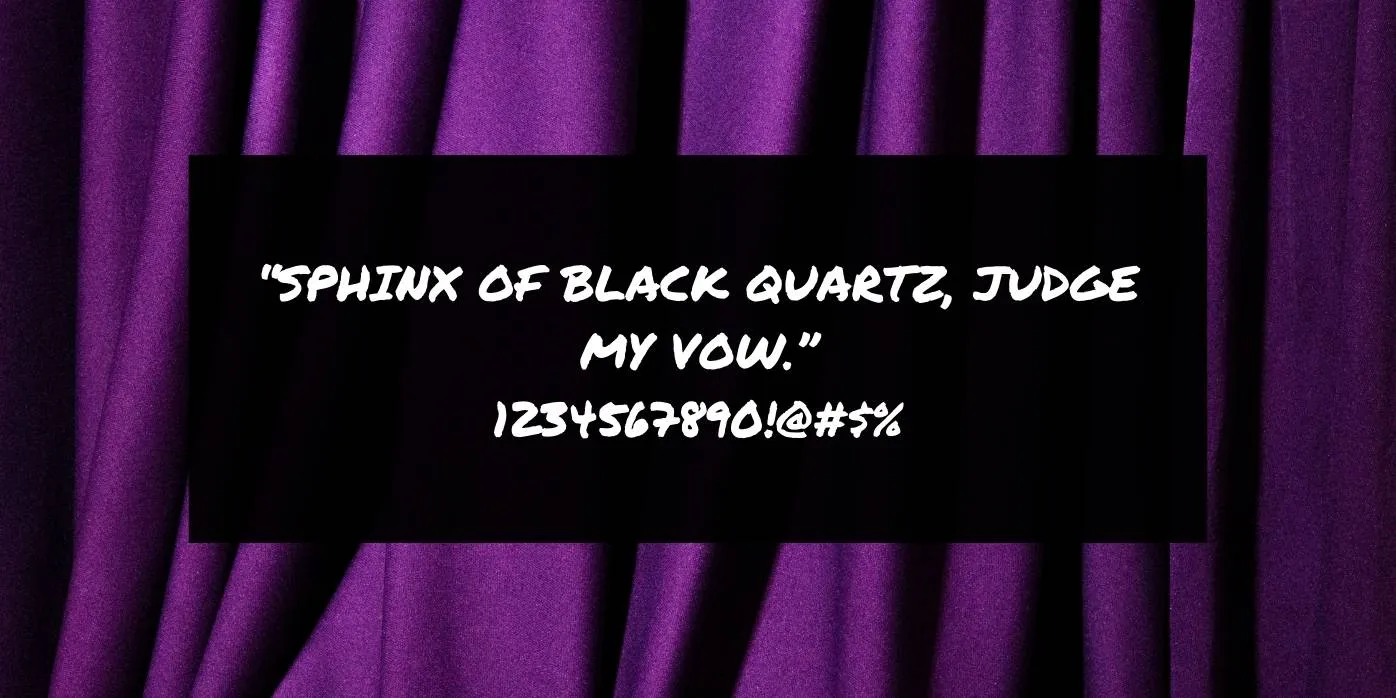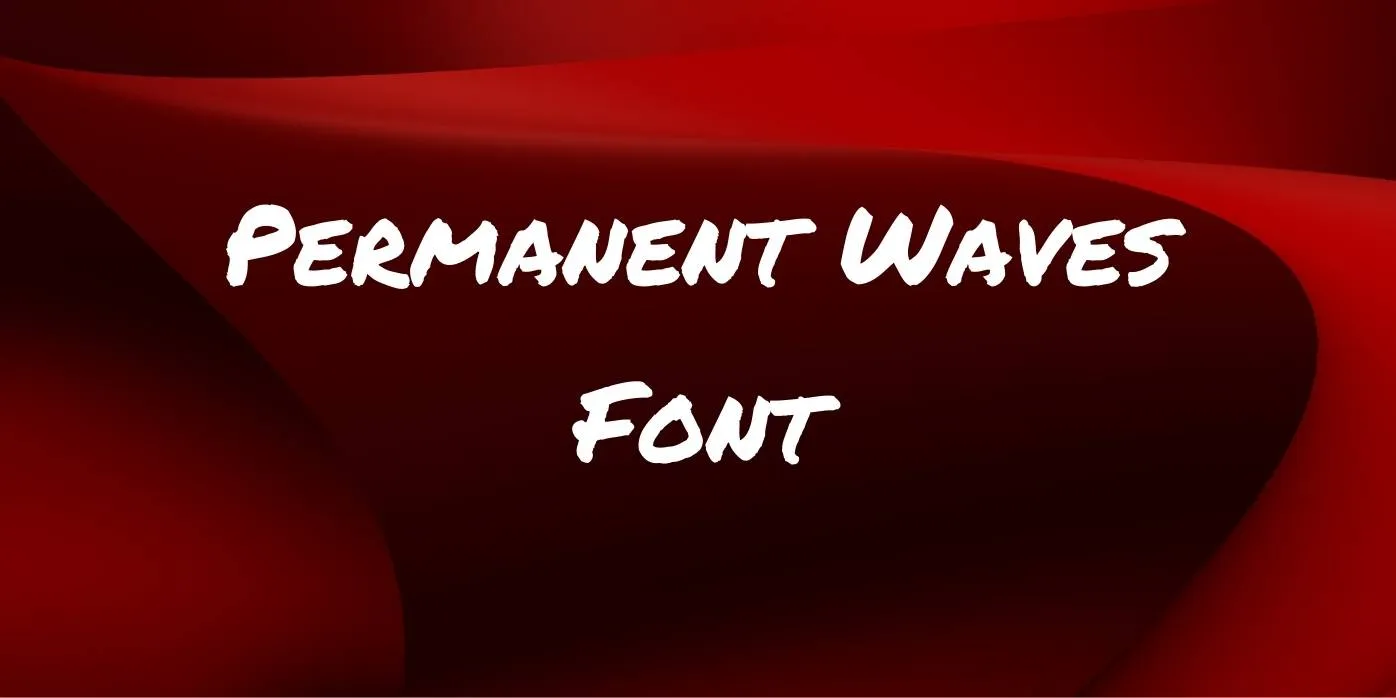
Permanent Waves Font
Permanent Waves Font is a script typeface designed by Brian J. Bonislawsky and Jim Lyles of Astigmatic One Eye Typographic Institute. The design was inspired by the classic waveforms of early 20th-century American advertising and packaging. This Font is available in two weights, Regular and Bold.
This Font was created in response to the growing popularity of wave-based graphics in the early 2010s. This font style has become increasingly popular in recent years as a way to add an organic, natural feel to digital designs. For more advanced uses, you need to use norton font by making a combination with this family. The waveform shapes of this font give it a unique, playful character that is perfect for any project.
This font is a great choice for any design that needs a touch of personality. Whether you’re looking for a headline font or something to add some flair to your next project, this font is sure to make a lasting impression.